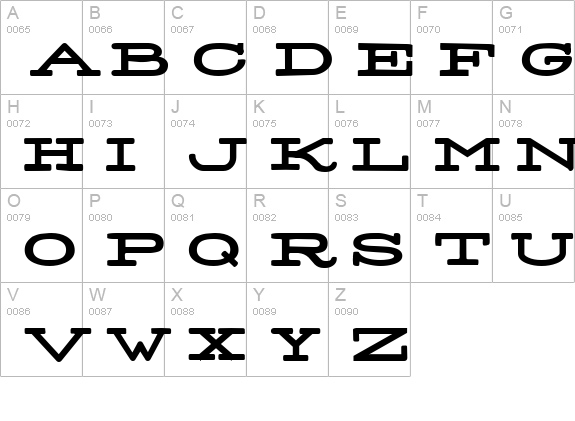
Stereo Normal Font Details
Stereo Normal is the standard, neutral variant in the Stereo typeface family \xE2\x80\x94 well suited to general body text, paragraphs, and standard typographic work.
Stereo Normal is a stylish and modern font that is perfect for adding a touch of sophistication to any design project. Its clean lines and smooth curves make it incredibly versatile, allowing it to be used in a variety of contexts. Whether you're designing a logo, creating a website, or designing a poster, Stereo Normal will add a professional and polished look to your work. What sets Stereo Normal apart from other fonts is not only its sleek design, but also the fact that it is free to download. That's right, you can enhance your designs with this stunning font without spending a dime. Simply head over to FontsMarket.com and download Stereo Normal for free. With Stereo Normal, you'll have access to a wide range of characters and glyphs, making it easy to customize and create unique compositions. The font's versatility allows it to be used in both large and small sizes, ensuring that your text will always look clear and legible. Whether you're a professional designer or just starting out, Stereo Normal is a must-have font in your collection. Its timeless design and free availability make it a valuable asset for any project. Download Stereo Normal today at FontsMarket.com and elevate your designs to the next level.